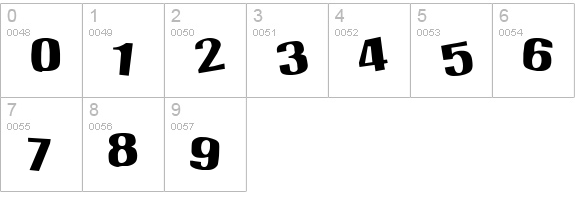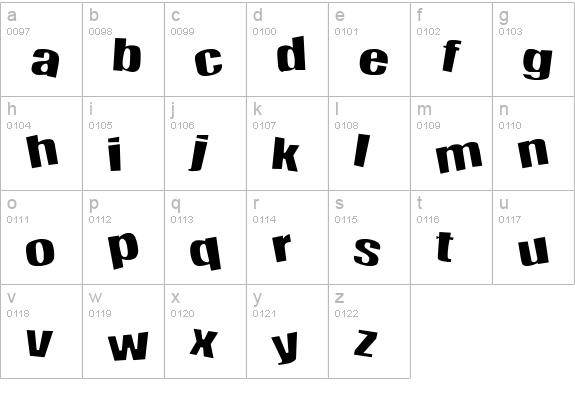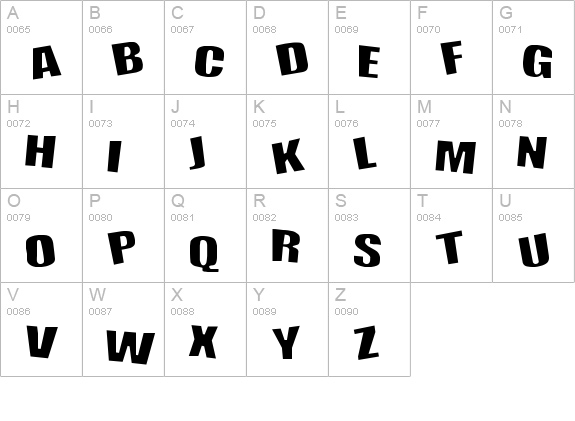
Happy Happy Joy Joy Font Details
Introducing the Happy Happy Joy Joy font, a whimsical and playful typeface that exudes happiness and joy in every letter. This font is a perfect choice for those seeking to add a touch of cheerfulness to their designs, whether it's for a greeting card, a children's book, party invitations, or any other project that calls for a burst of positivity. The Happy Happy Joy Joy font features a delightful combination of rounded edges and quirky curves, giving each character a lively and animated appearance. Its bold and vibrant strokes make it easy to read and instantly captivating to the eye. With its friendly and inviting nature, this font will surely bring a smile to anyone who encounters it. But what makes the Happy Happy Joy Joy font even more special is that it is freely available to download at FontsMarket.com. Yes, you read that right - free! We believe that spreading joy should be accessible to all, and we wanted to make sure that anyone can enjoy the uplifting charm of this font without breaking the bank. So, whether you're a professional designer looking to add a touch of whimsy to your next project or a casual user wanting to bring some happiness to your personal creations, the Happy Happy Joy Joy font is here to brighten your day. Embrace the free-spirited and joyful nature of this font and let your imagination run wild as you create designs that are bound to spread smiles everywhere they go. Download the Happy Happy Joy Joy font for free at FontsMarket.com and let the happiness flow through your designs. It's time to bring some extra joy to the world, one character at a time!